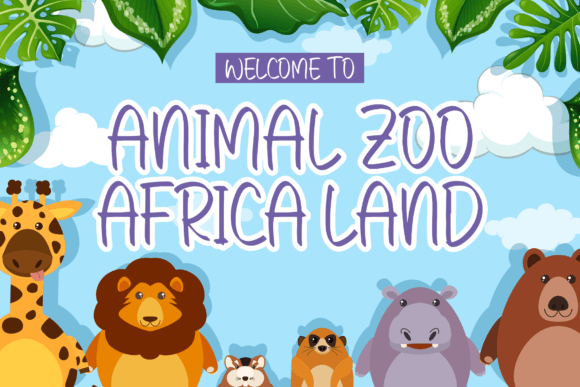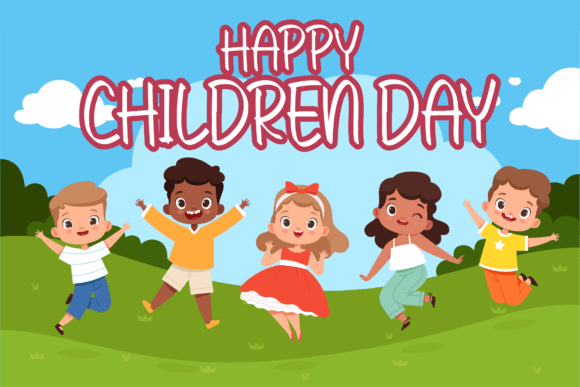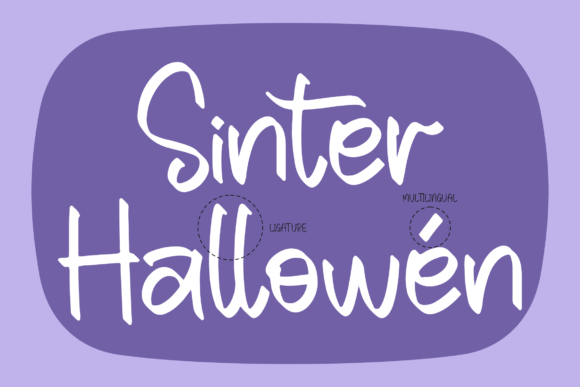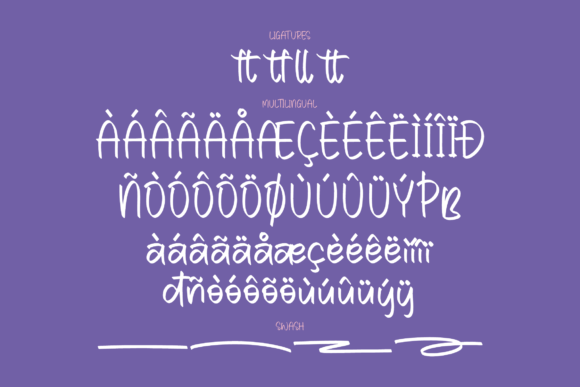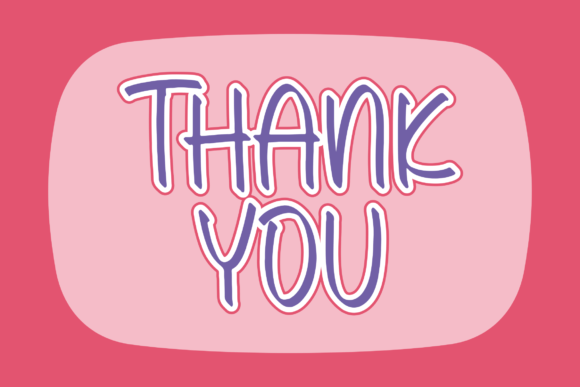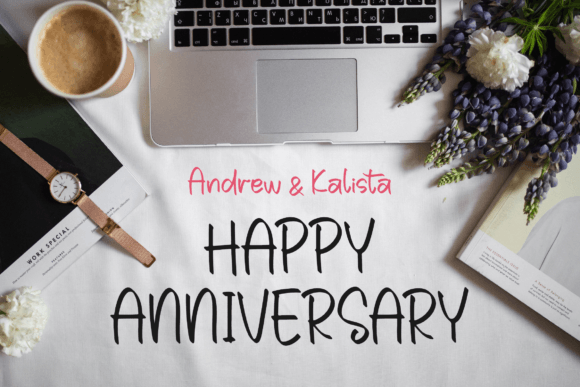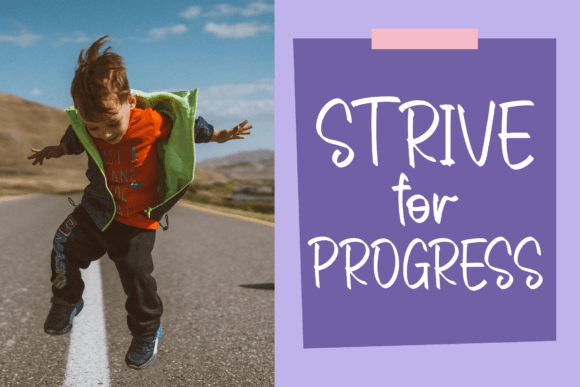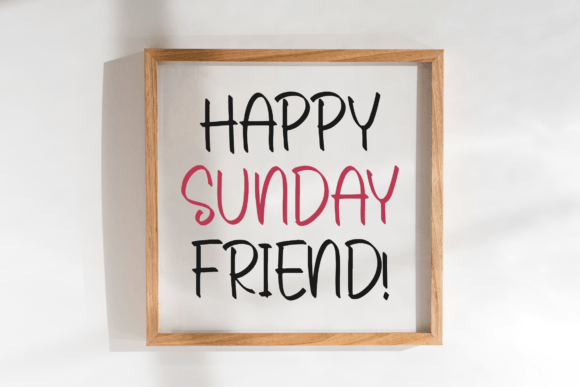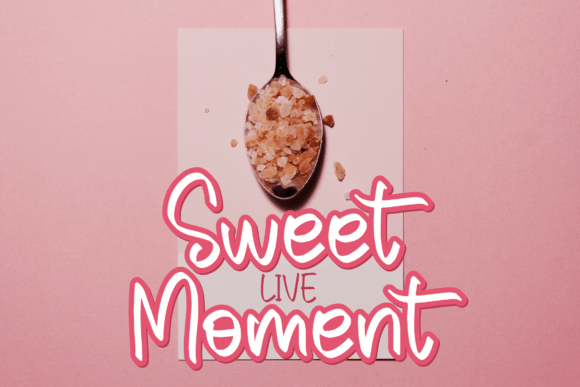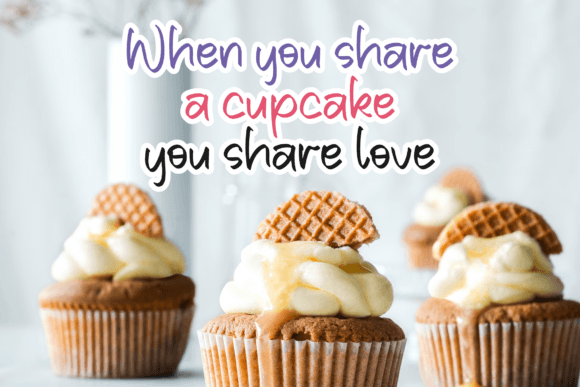
Sinter Cloudy Font
About Sinter Cloudy Font
SINTER CLOUDY presents itself as an exceptionally quirky and sweet display font, designed to infuse a delightful touch into various creative projects. This font’s unique charm makes it an excellent choice, particularly for designs related to cartoons, children’s games, or any creation where a lovely and playful aesthetic is desired.
The inherent quirkiness of SINTER CLOUDY sets it apart, giving it a distinctive personality that can bring joy and whimsy to your designs. The font’s playful nature makes it well-suited for projects targeting a younger audience or those that seek to convey a lighthearted and fun atmosphere.
Whether you are working on cartoon-related designs, creating materials for children’s games, or any project that requires a touch of sweetness, SINTER CLOUDY proves to be an outstanding choice. Its design exudes a sense of charm that can captivate and engage viewers, making it a valuable asset for designers aiming to create visually appealing and cheerful content.
The versatility of SINTER CLOUDY is evident in its adaptability to a range of creative applications. Its display font characteristics make it ideal for headlines, titles, and other prominent text elements where a distinctive and lively style is desired. The font’s unique shapes and characters add an element of fun and creativity to the overall design.
In summary, SINTER CLOUDY is more than just a font; it’s a playful and charming design tool that can transform ordinary projects into visually captivating creations. Whether you’re creating content for children or injecting a dose of joy into any design, this font is an amazing choice that brings a quirky and sweet flair to your creative endeavors.